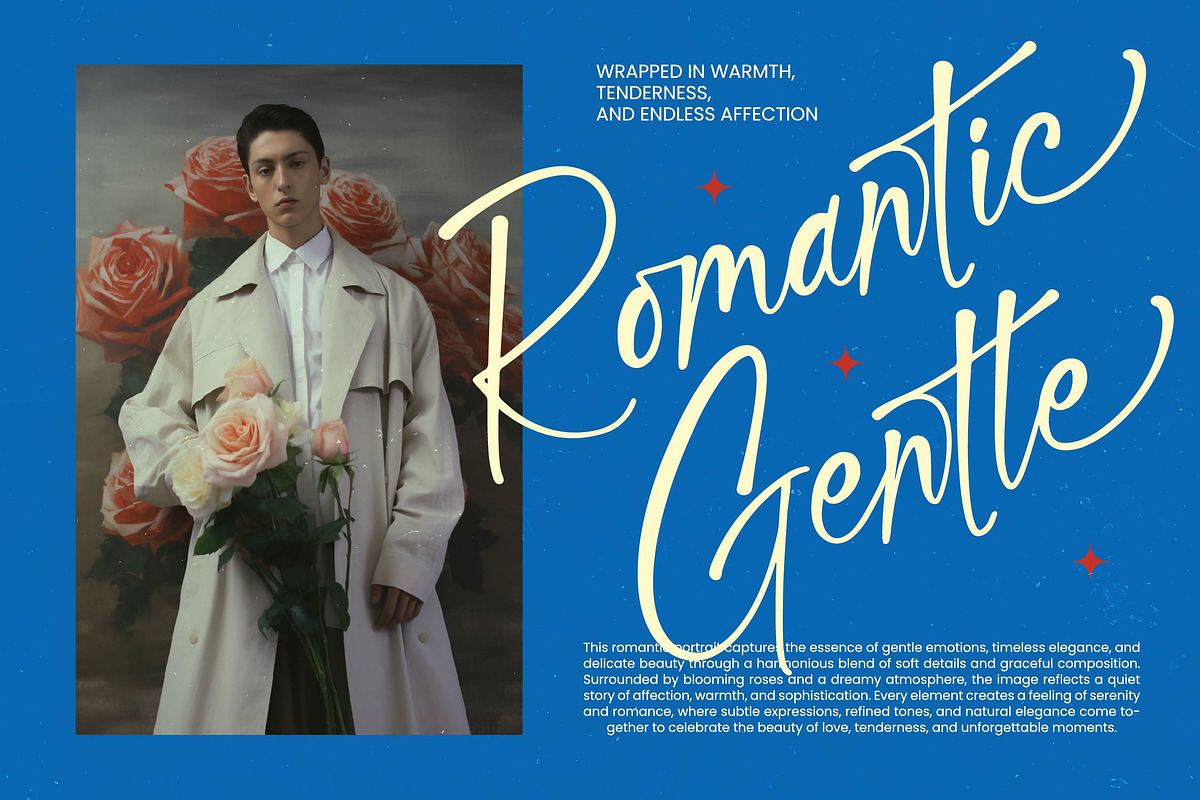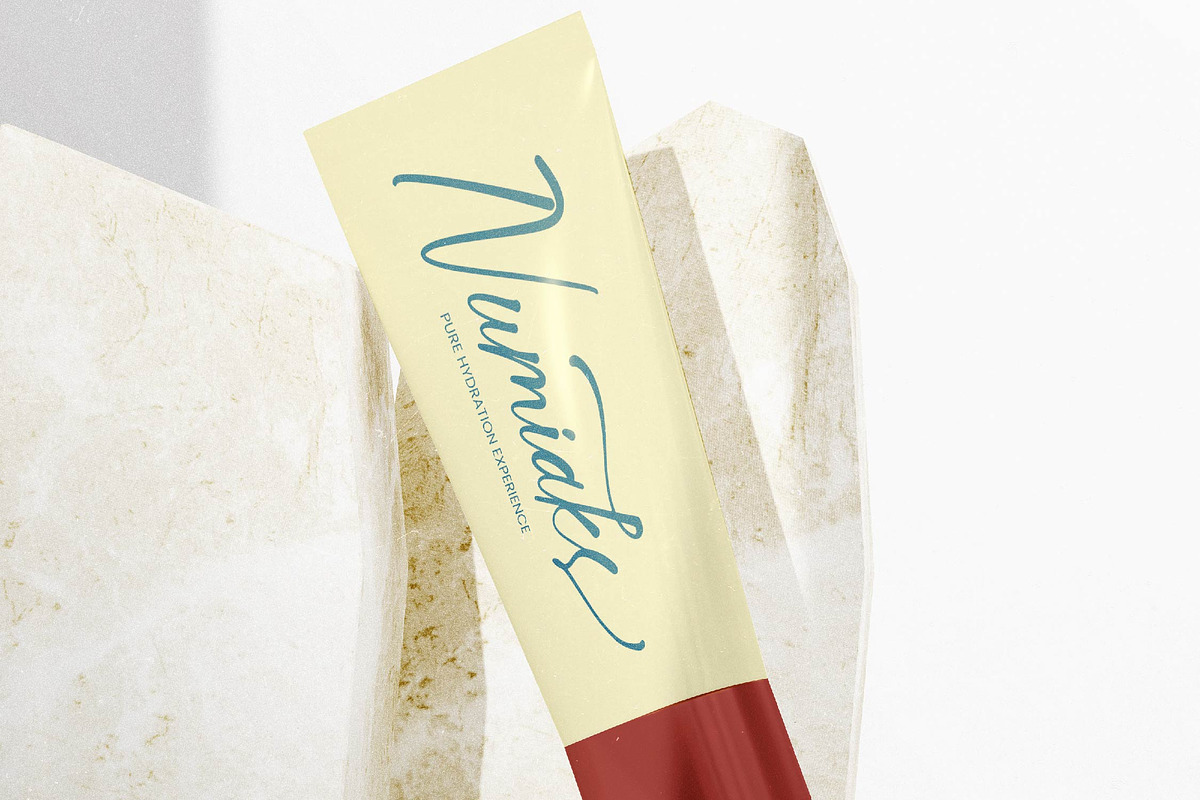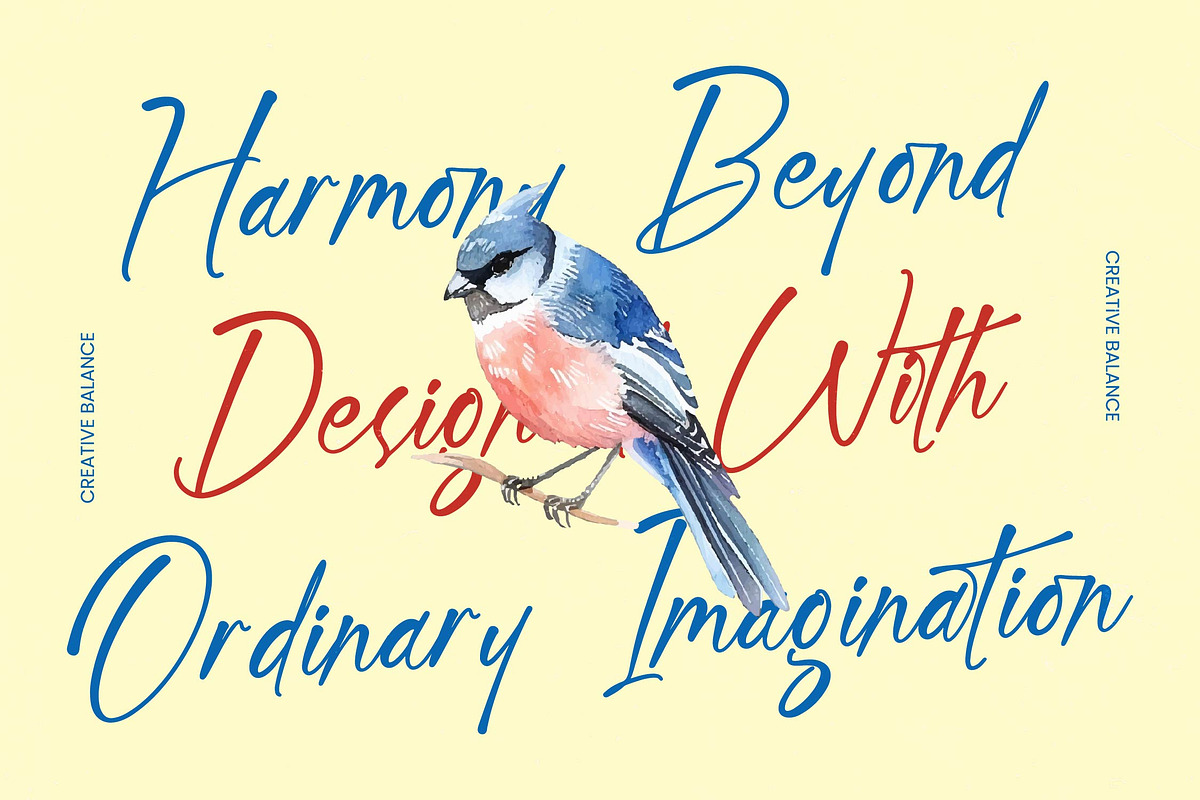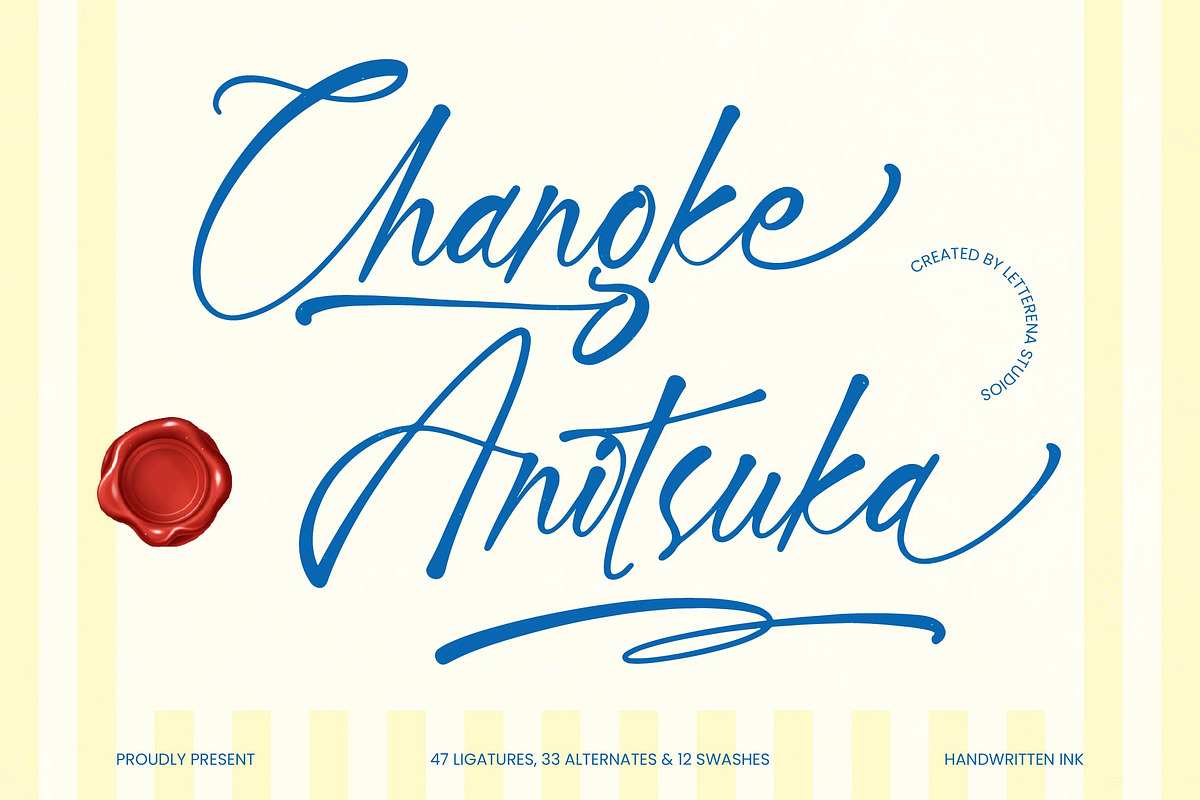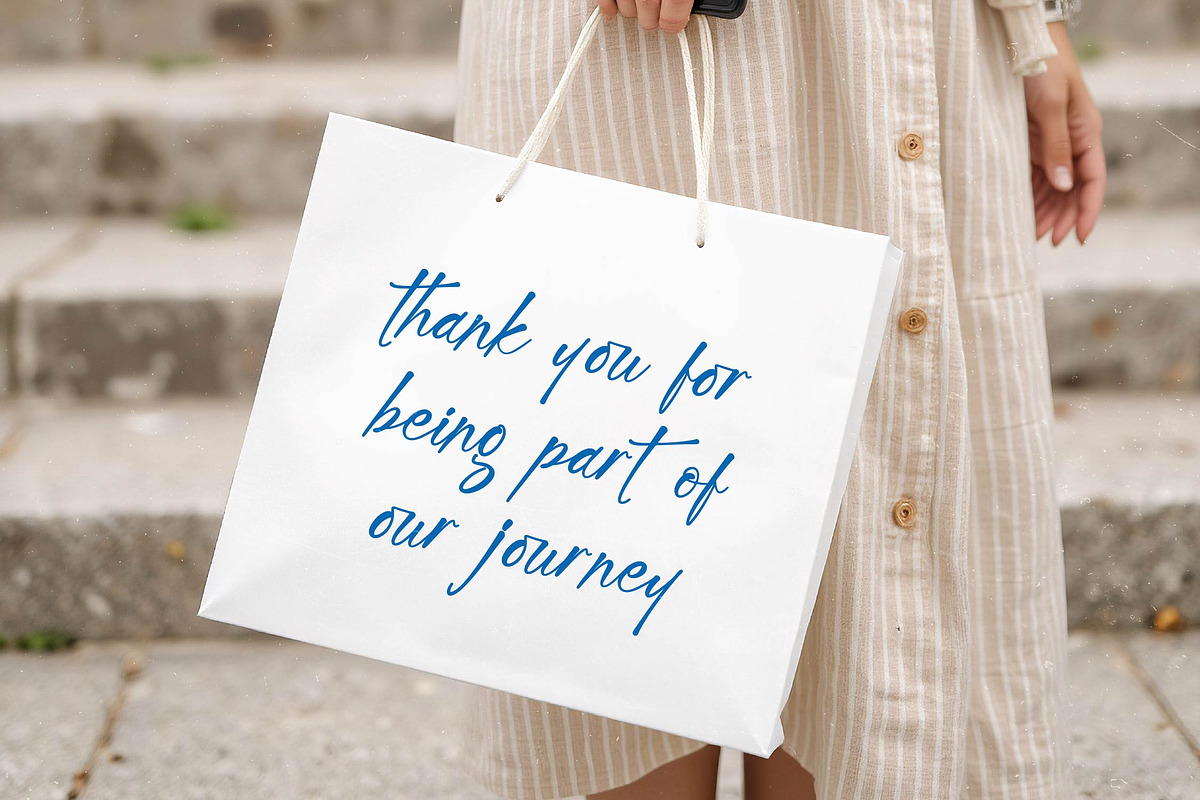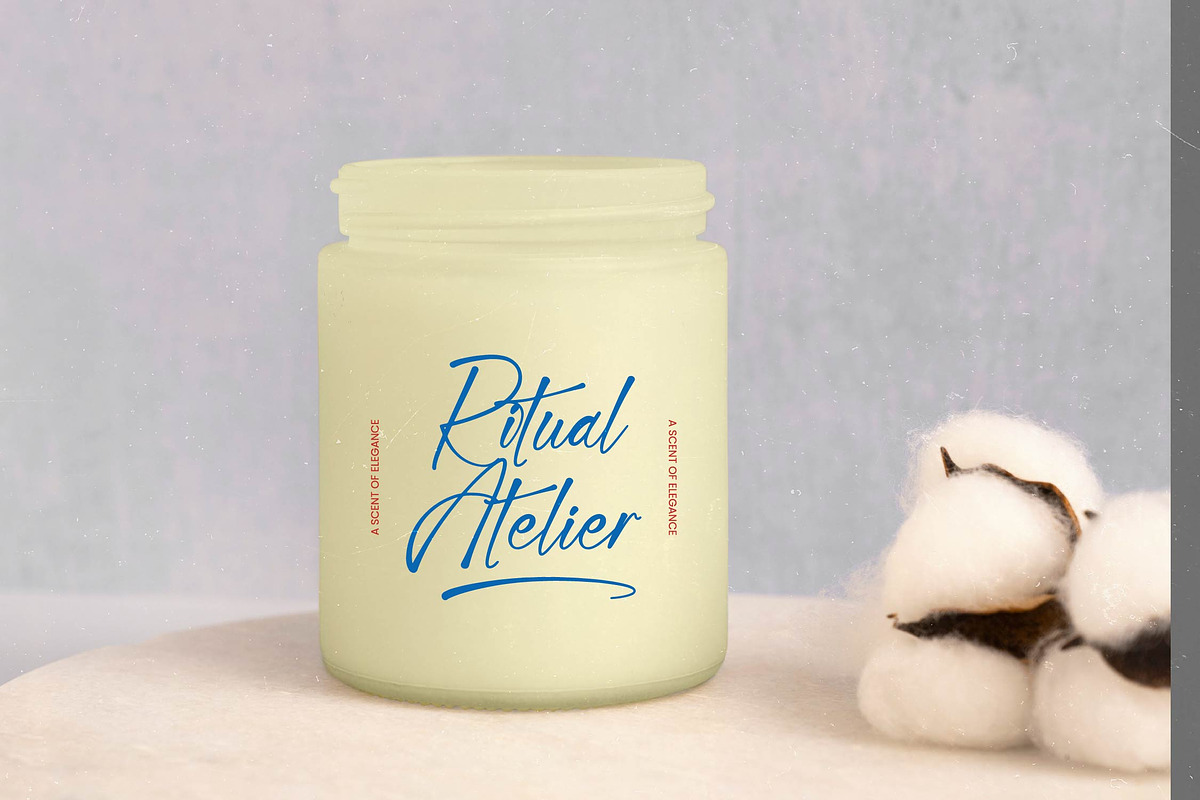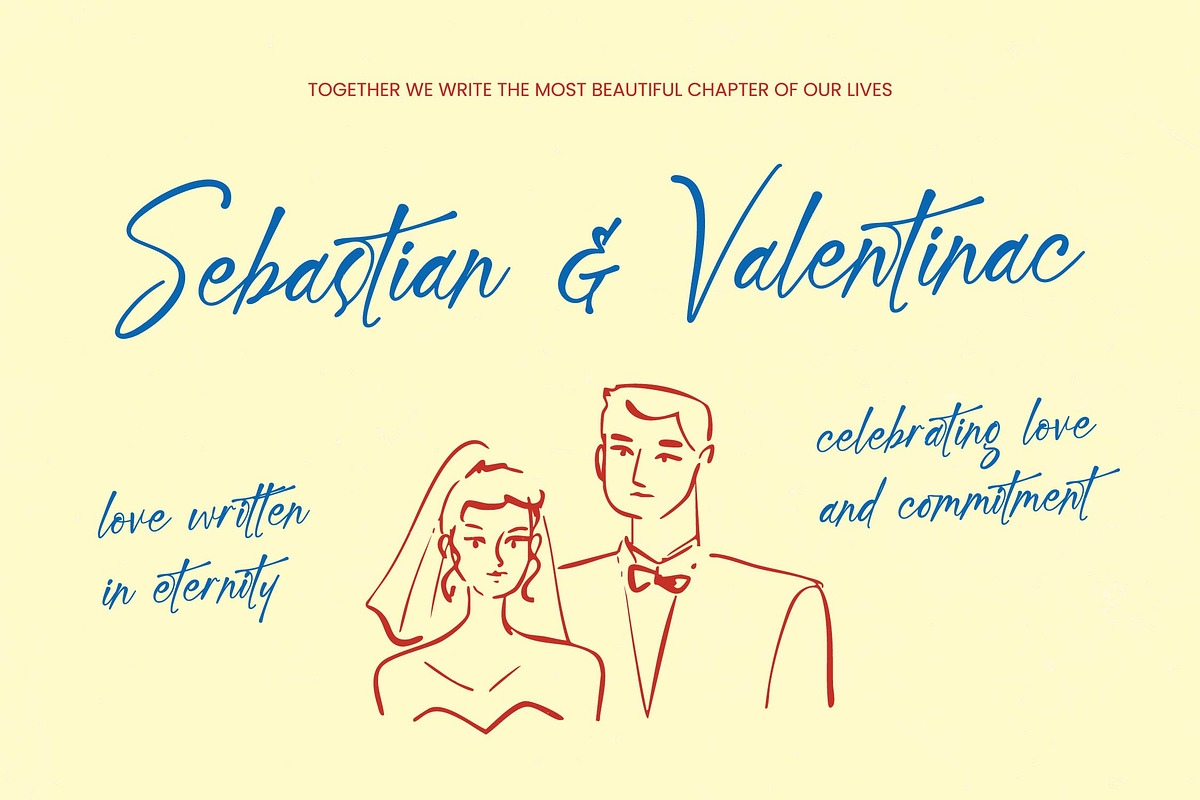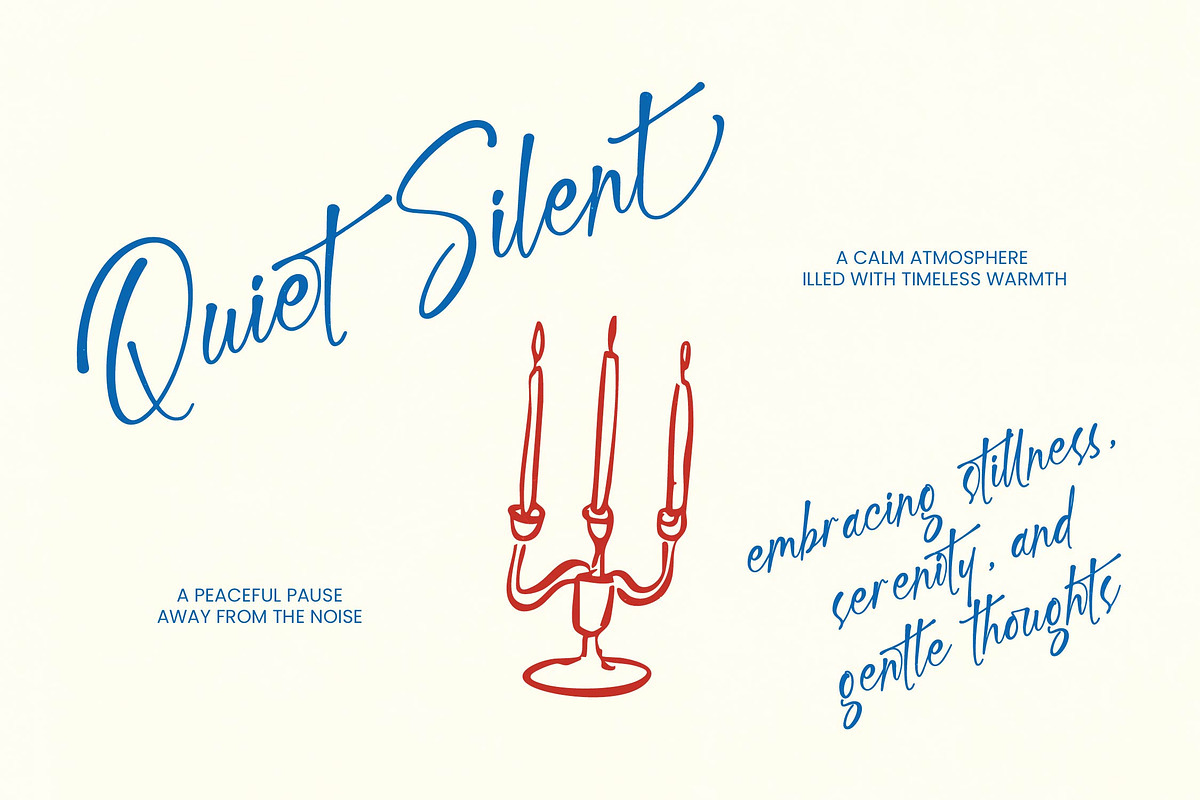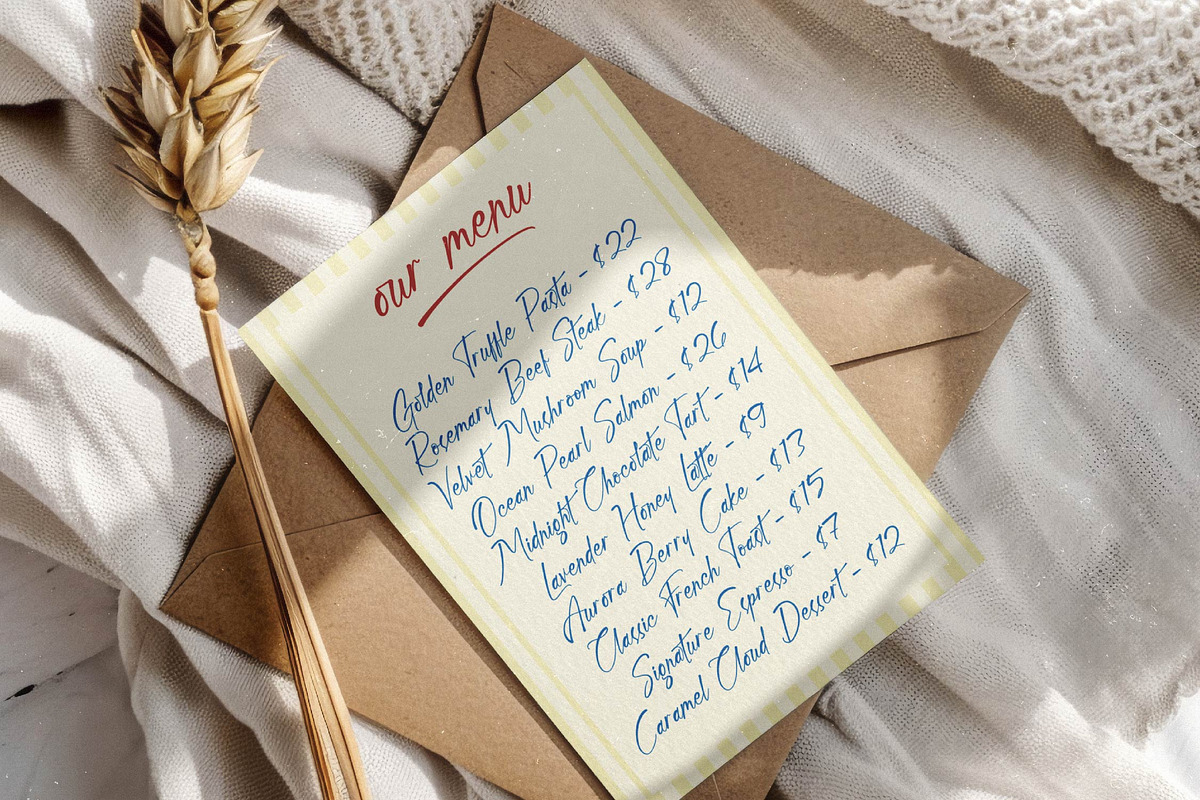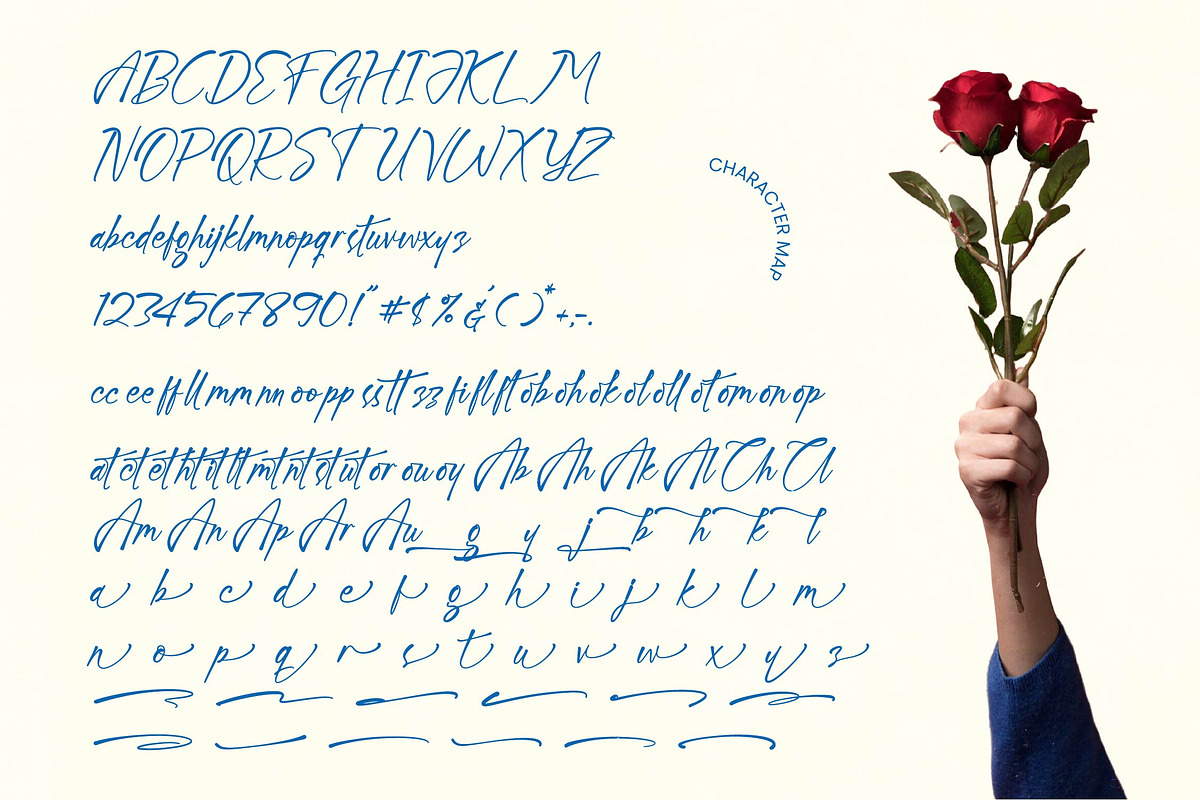
Changke Anitsuka Handwritten Ink
Changke Anitsuka - Handwritten Ink , Elevate your creative vision with a typeface that embodies raw elegance and artisanal craftsmanship. Changke Anitsuka - Handwritten Ink captures the fluid motion of a master’s pen, offering a sophisticated aesthetic that blends organic textures with a refined flow. Its hand-drawn authenticity and expressive ligatures create a sense of personal connection and high-end quality, making it a standout choice for designers seeking a premium signature style.
Bridge the gap between local charm and international appeal through superior typographic engineering. With its extensive multilingual support, Changke Anitsuka - Handwritten Ink adapts seamlessly across global markets, making it incredibly versatile for international projects. This globally accessible typeface ensures that your brand voice remains consistent and impactful, regardless of the linguistic landscape, providing a seamless user experience for diverse audiences.
Transform your marketing collateral into a visual masterpiece with the perfect balance of grace and power. This font is the ideal application for luxury branding, high-end packaging, and bespoke editorial design. It is perfect for wedding invitations, boutique logos, and cosmetic branding where a touch of exclusivity and artistic flair is required. By integrating Changke Anitsuka - Handwritten Ink, you infuse your projects with a distinctive personality that resonates with style-conscious brands.
Unlock a world of creative possibilities with a toolkit designed for the modern professional. Featuring an impressive array of alternates and swashes, Changke Anitsuka - Handwritten Ink allows for deep customization, ensuring every layout feels unique and handcrafted. Invest in a timeless typographic solution that prioritizes visual harmony and commercial viability. Choose Changke Anitsuka - Handwritten Ink to elevate your next project from standard to extraordinary.